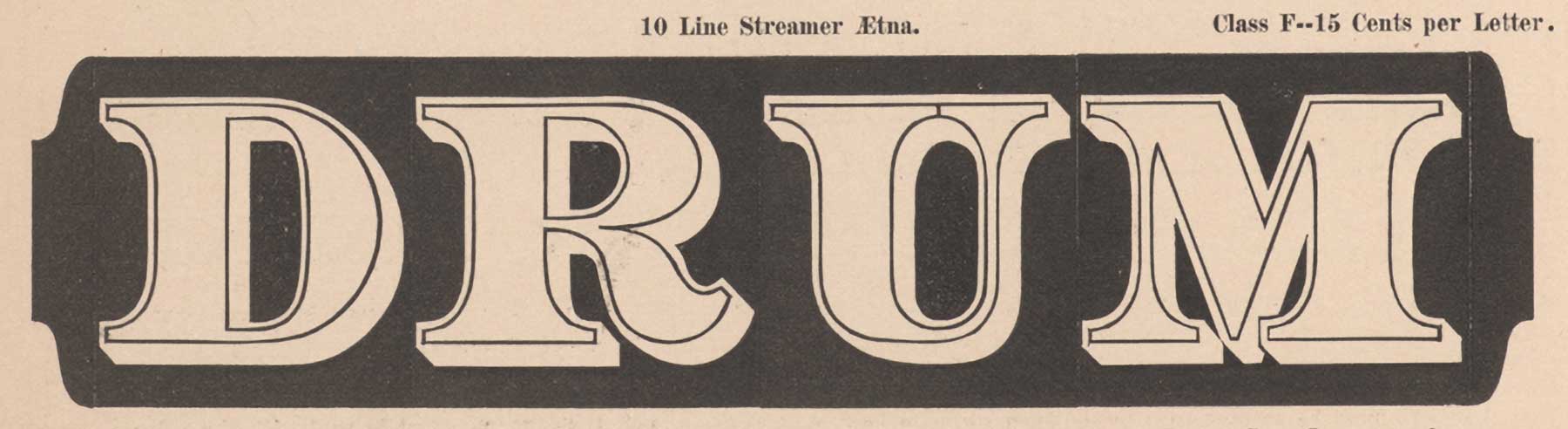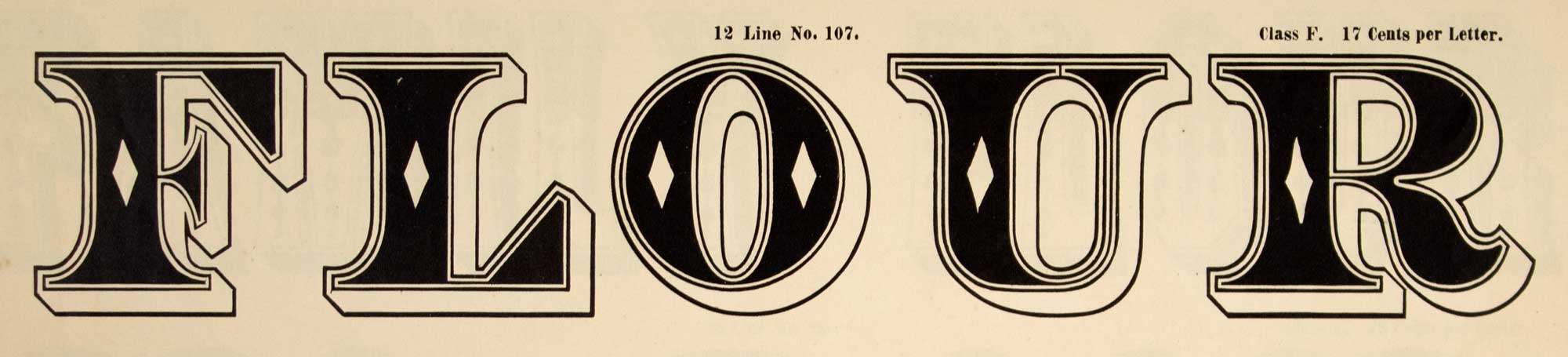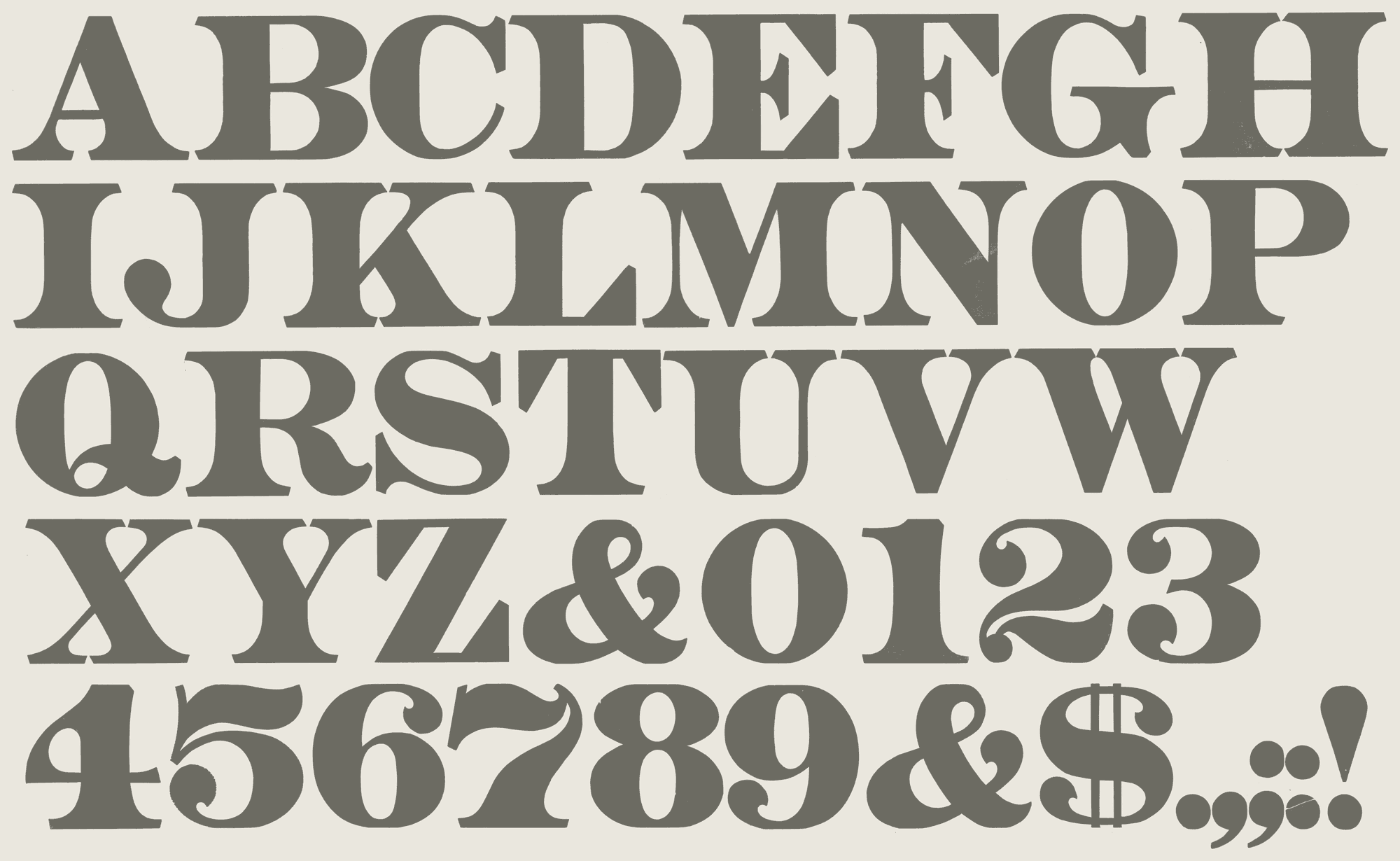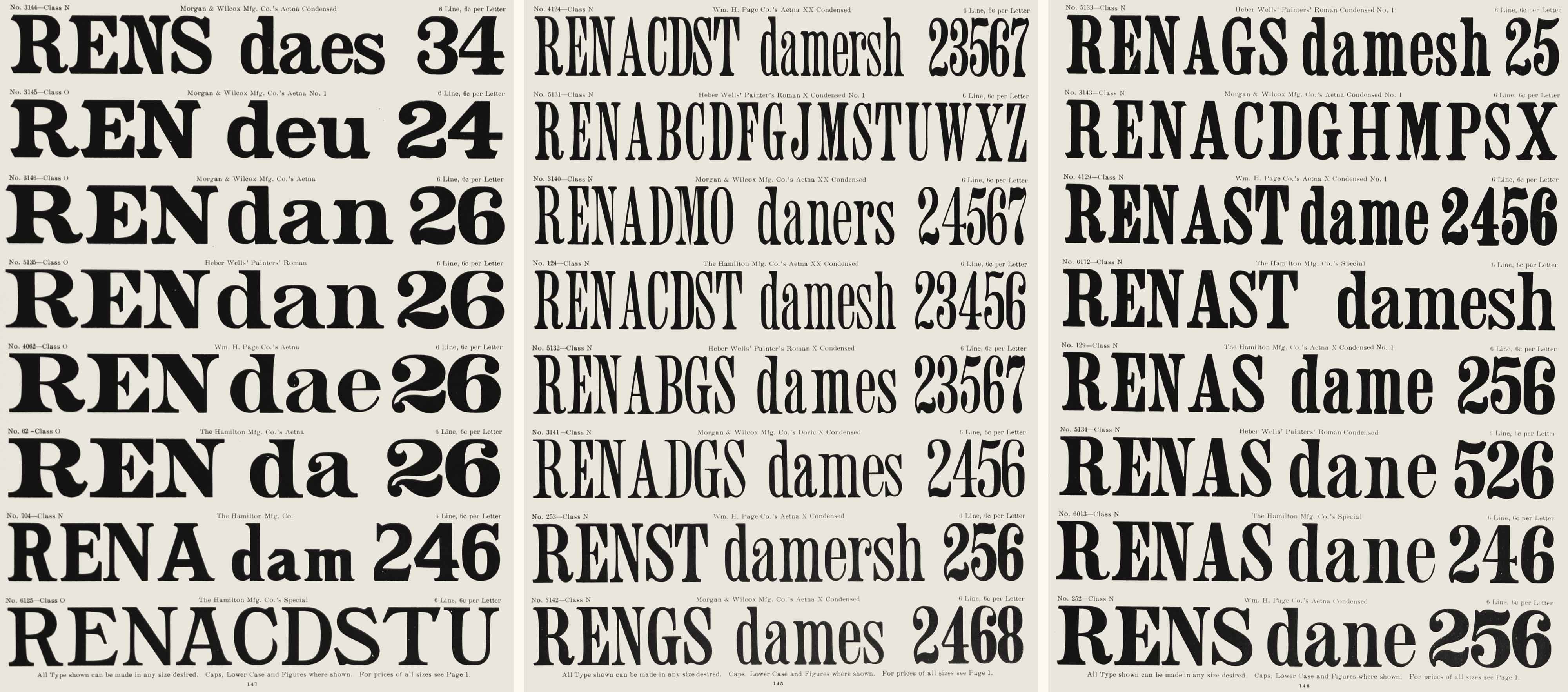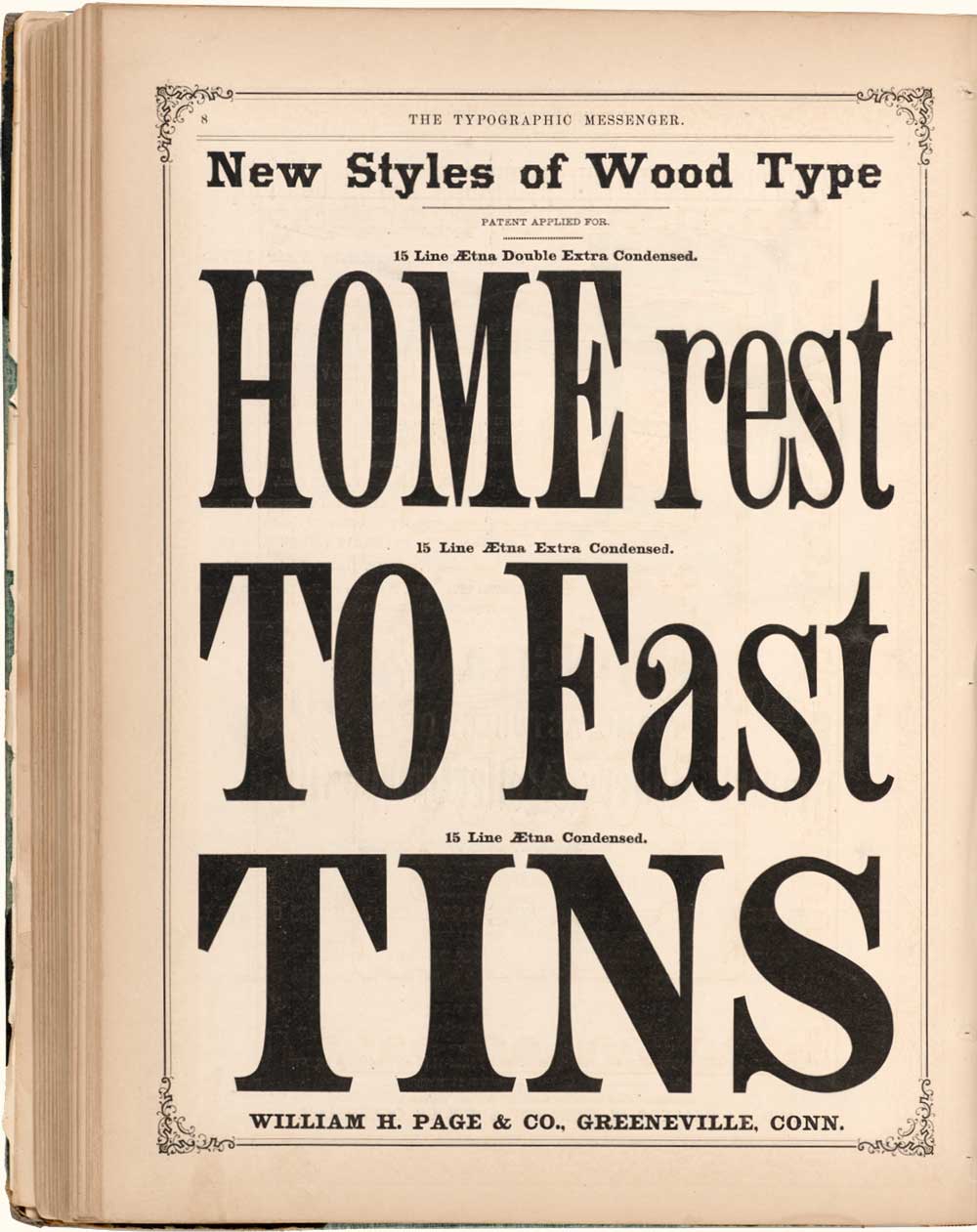
A variety of Aetna typefaces offered as wood printing type by Hamilton Mfg Co. in their 1906 catalog.
A History of ‘Aetna’ Typefaces
The historical Aetna style of typefaces that inspired Mark Simonson’s Etna type series has a unique history, with precursors in metal type and engraved lettering but solidifying as a distinct stylistic genre in the world of American wood type.
Pre-Aetna Fat Faces and Engraved Romans
A fat face from George Bruce & Co., 1828.
The introduction of the fat face roman in the early nineteenth century heralded the advent of types designed specifically for display rather than for book work. The fat face roman would remain a dominant display style until the last quarter of the nineteenth century, but to meet the increased demands for poster printing more robust styles were developed by American wood type manufacturers. Modifications to the fat face roman first emerged as engraved and lithographed letterforms in the United States in the early 1860s, as can be seen on US banknotes at least as early as 1861.
1861 US “greenback” demand note, showing a pre-Aetna engraved roman lettering style.
The drawing of these letterforms included a slight decrease in the contrast of light and heavy strokes by increasing the overall weight of the lightest strokes, an exaggerated bracketing of the serifs, and a gradual tapering of the stems.
Ornamented № 1,519 from George Bruce & Sons type foundry.
Rimmed Roman from the Farmer, Little & Co. type foundry.
Modifications to the fat face roman also began to appear typographically as outlined letterforms in the late 1860s, as seen in Bruce’s Extended Rimmed Ornamented (USD 2831, patented 19 November 1867) and Farmer, Little’s Rimmed Roman (USD 3070, patented 16 June 1868). The outline of these romans produced an overall sturdier contour through lowered contrast between light and heavy strokes. Both the engraved and typographic letterform patterns of the 1860s were direct influences on Wm H. Page & Co.’s Aetna¹ series.
The Official Birth of Aetna
William H. Page’s 1871 patent for his Aetna typeface.
The Aetna type style originated as wood type in the U.S. and was patented by William H. Page and assigned to William H. Page & Co. as U.S. design patent № 4,820 on 18 April 1871. The face was first shown by William H. Page & Co. in James Conner’s Sons Typographic Messenger, Vol. 7 № 3 (July 1872). William Page described the distinctive aspects of the design in the U.S. design patent application as:
[…] nearly all of the straight parts of the letters are curved upon each side, being narrowest at their center, and gradually widen each way to the ceriphs, the curved side lines becoming sharper each way from the center till they form the inner lines of the ceriphs. These ceriphs are made small and have their ends beveled, converging outward, and all the terminations are also beveled in like manner.
Aetna alphabet printed from wood type in the Rob Roy Kelly American Wood Type Collection.
In American Wood Type 1828–1900 Rob Roy Kelly described Aetna as an innovative reaction against the perceived fragility of the long popular fat face roman, and was developed to “withstand rough handling, be highly legible, and be heavy enough for display”.² Aetna had squared proportions with a slight reduction in stroke contrast in comparison to the fat face roman, and included the addition of exaggerated bracketing at the serif joint. The termination of the extended serifs were trapezoidal rather than rectangular, typically referred to as the Mansard³ or Detroit Serif⁴.
Condensed additions to Page’s Aetna wood type series as advertised in 1874 in The Typographic Messenger.
Expansion
Two years later Wm H. Page & Co. had developed and patented three stylistic variations of its original full face design. Patent applications were filed on 27 October 1873 and awarded on 23 December 1873 for Aetna Condensed (USD 7,074), Aetna X Condensed (USD 7,073), and Aetna XX Condensed (USD 7,072). Other American wood type manufacturers also offered this design after Wm Page & Co.’s introduction at least as early as the 1877 Specimens of Vanderburgh, Wells & Co.’s Wood Type, Borders, Rules, &c. The other American wood type manufacturers also used the names Doric and Painter’s Roman as alternatives to the name Aetna with very little variation to the original design. These designs were prominent in poster printing in the last quarter of the nineteenth century, but do not appear to ever have been adopted by the metal type foundries.
10-Line Streamer Aetna as shown in The Typographic Messenger in 1875.
12-Line Chromatic Aetna № 4 as shown in Wm H. Page & Co.’s legendary 1874 chromatic specimen book.
12-Line № 107, an ornamented variation of Aetna as shown in an 1878 specimen book from the Wm H. Page Wood Type Co.
A range of expanded stylistic variations were introduced in the 1874 Specimens of Chromatic Wood Type, Borders, &c. Manufactured by Wm H. Page & Co., Greenville Conn. that included Aetna Open, Aetna Ornamented, Aetna Ornamented №s 1, 2, & 3, Streamer Aetna, Chromatic Aetna, and Chromatic Aetna №s 1, 2, 3, & 4.
Designers
During the 4 years of the primary development of Aetna and its stylistic expansion, eight employees of Wm H. Page & Co. were tasked as “type makers” (type designers) at the company. While William Page is listed as the “inventor” of Aetna and its stylistic family in the patent record, it is more likely that the company’s type makers were responsible for the actual drawing and development. These type makers included Albert Brooks, Lewis Hovey, George Kies, George Marshall, John Martin, Moses Sherman, Luzerne Spaulding, and Charles Tubbs⁵. It is not yet possible to determine in more granular detail which specific type maker or group of type makers might have been directly responsible for Aetna’s development.
Decline
By the turn of the 20th century the popularity of the Aetna pattern had run its course. The Hamilton Mfg Co., after acquiring its major competitors through the 1890s, showed the full range of Aetna styles available in the company’s encyclopedic 1906 Specimens of Wood Type, Wood Ornaments, Flourishes, Dashes, Silhouettes, Catchwords, Corners, Fractions, Calendars and Borders but only two of the ornamented styles in the company’s 1908 catalog. Their last showing of an Aetna appeared on the 1927 Specimens of Large Wood Type Manufactured by Hamilton Mfg Co. which featured Aetna X Condensed on the cover of the 36-page catalogue.